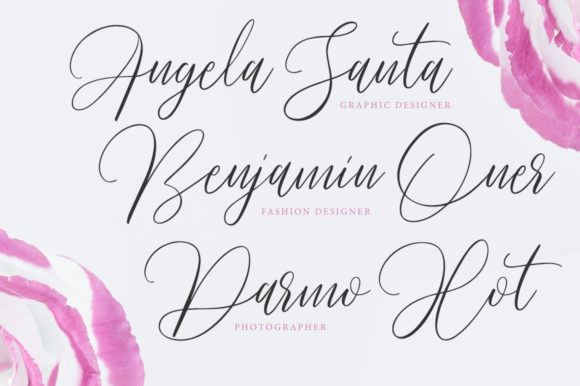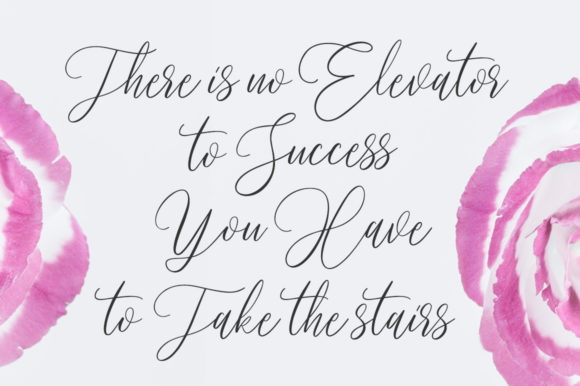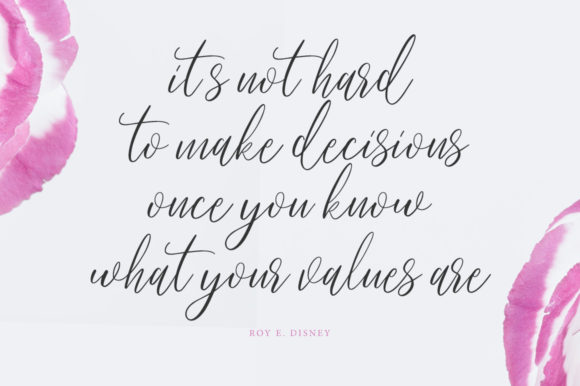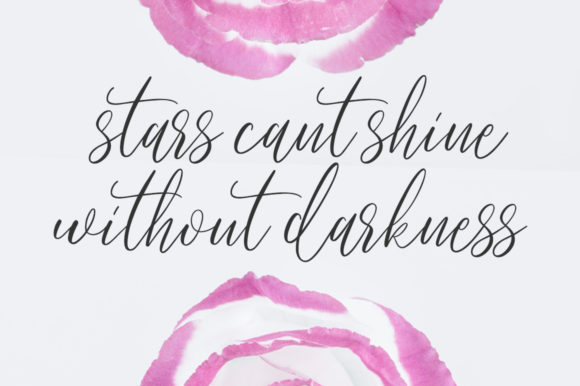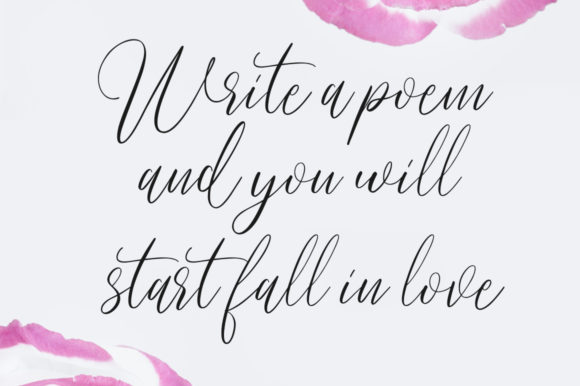
HomeScript FontsPradita Font Script Fonts Pradita Font FacebookXPinterestWhatsApp Pradita Font Poster 2 Pradita Font Poster 3 Pradita Font Poster 4 Pradita Font Poster 5 Pradita Font Poster 6 Pradita Font Poster 7 About Pradita Font Pradita is a stunning and lovely handwritten font with an authentic feel. DOWNLOAD ON CREATIVE FABRICAThis font is sold and delivered by Creative Fabrica. Font Canyon may earn a commission if you buy through this link. People also explored Sandra Sunkiss Font Monogram Daisy Font Deer Bell Font Sherlia Font Roger Type Font Kiwi Gildan 5000 Knotted T Shirt Mockup Bawnee Font Loving Days Font 328 0 TagsPradita Font Previous articleThe Fantastic FontNext articleLove Brush Font LEAVE A REPLY Cancel reply Comment: Please enter your comment! Name:* Please enter your name here Email:* You have entered an incorrect email address! Please enter your email address here Website: Save my name, email, and website in this browser for the next time I comment. Personal Use Free Bebas Neue Font Personal Use Free Read more about this font Amelline Personal Use Free Read more about this font Deling Personal Use Free Read more about this font Elevate Your Halloween Designs with 500 Free High-Quality PNG Clipart Files Personal Use Free Read more about this font BLOG Exploring Font Trends Shaping Communication in the Digital Era Fonts, like all design elements, are subject to trends. They play a crucial role in communicating a brand's personality,... To increase your work productivity, choose the most readable fonts. Modern Sans-Serif Fonts That Brands Love in 2025 Top 7 Google Fonts Alternatives for Faster and Privacy-Friendly Web Design (2025)